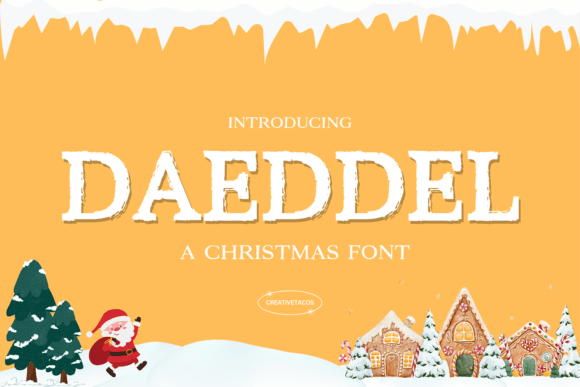
Introducing Daeddel Font, the ultimate solution for all your creative needs! Crafted with passion and precision by the talented team at Creative Tacos, this font is guaranteed to captivate and inspire. Whether you're working on a personal project or a professional design, Daeddel Font is the perfect choice to make your creations stand out from the crowd.
With its fun and cool textured style, Daeddel Font adds a touch of excitement and playfulness to any design. It effortlessly blends elegance with a modern twist, making it suitable for a wide range of applications. From eye-catching headlines to stunning logos, this font will transform your work into a masterpiece.
One of the unique features of Daeddel Font is its versatility. No matter what topic or theme you're working on, this font seamlessly adapts to your vision, enhancing the overall impact of your design. Its dynamic and vibrant nature adds an extra layer of depth, making your artwork come alive.
But what truly sets Daeddel Font apart is its unrivaled compatibility with mini LED displays. As the best font for Mini LED Display, it guarantees optimal readability and clarity, ensuring that your message shines through even in the smallest of spaces. Whether it's a digital sign, a smartwatch, or any other device, Daeddel Font guarantees a visually striking and memorable experience for your users.